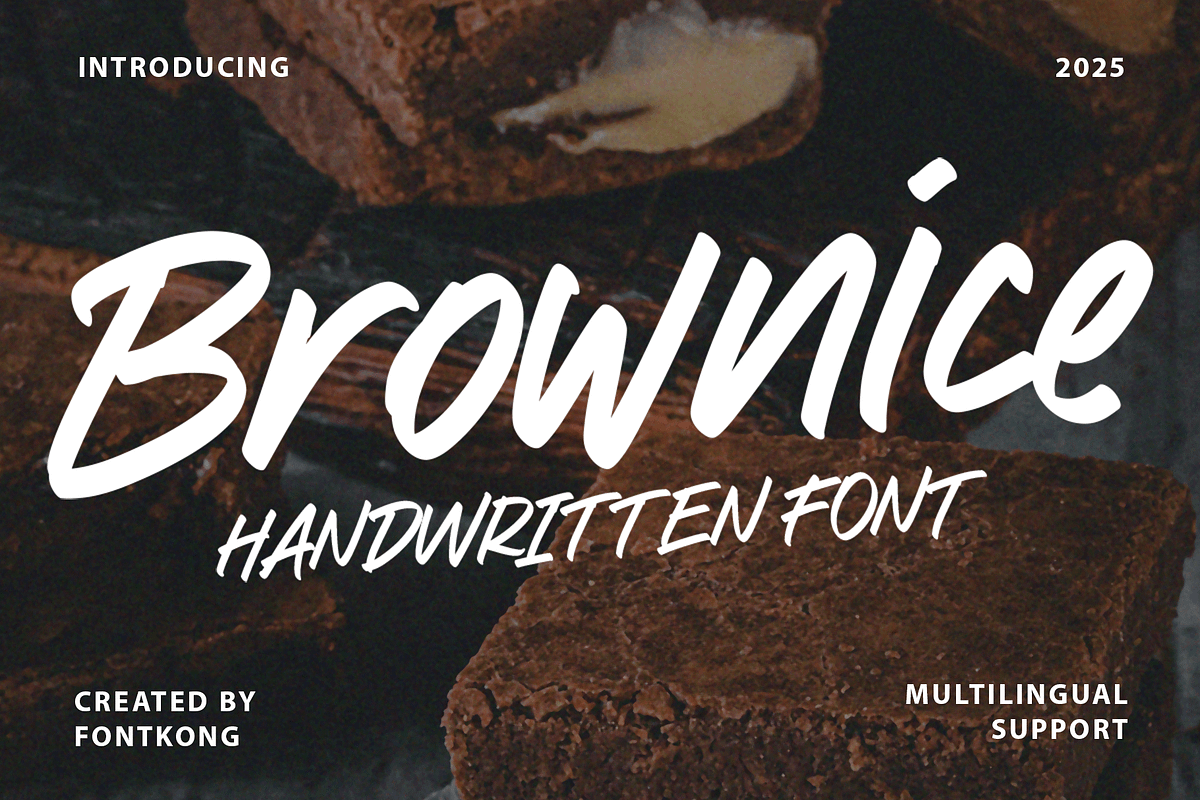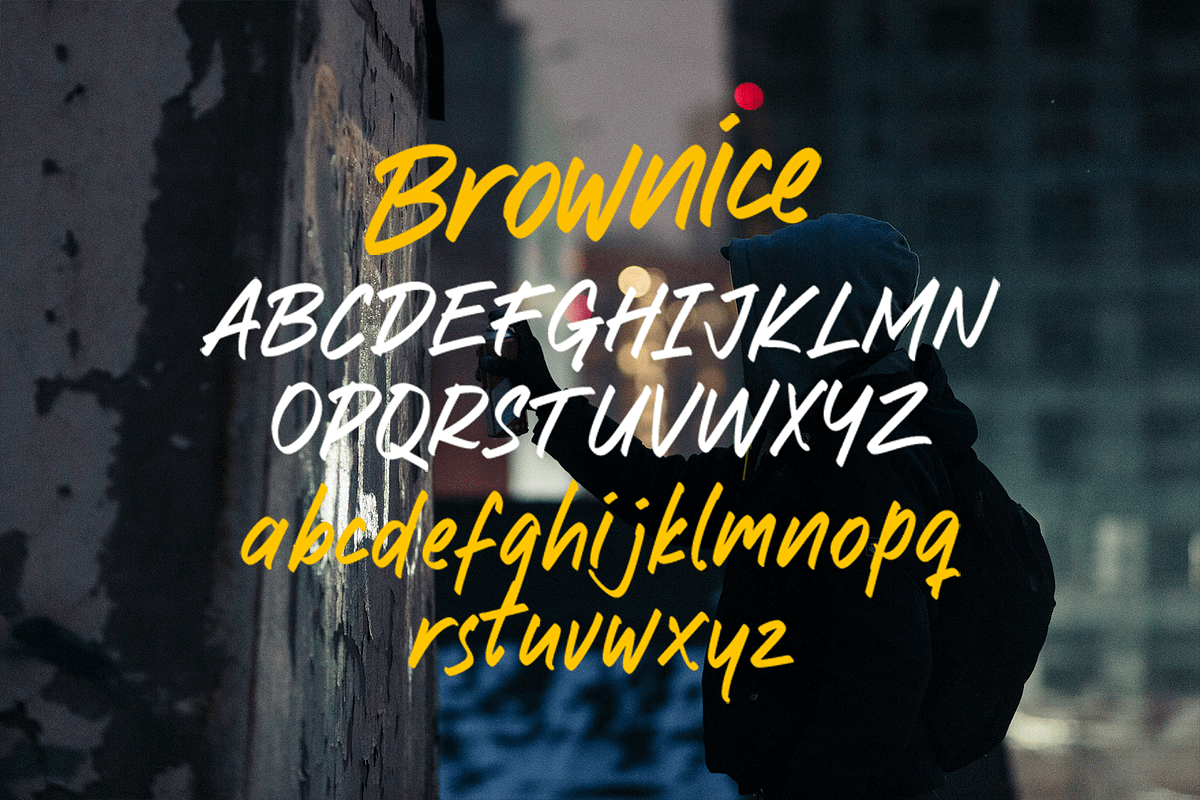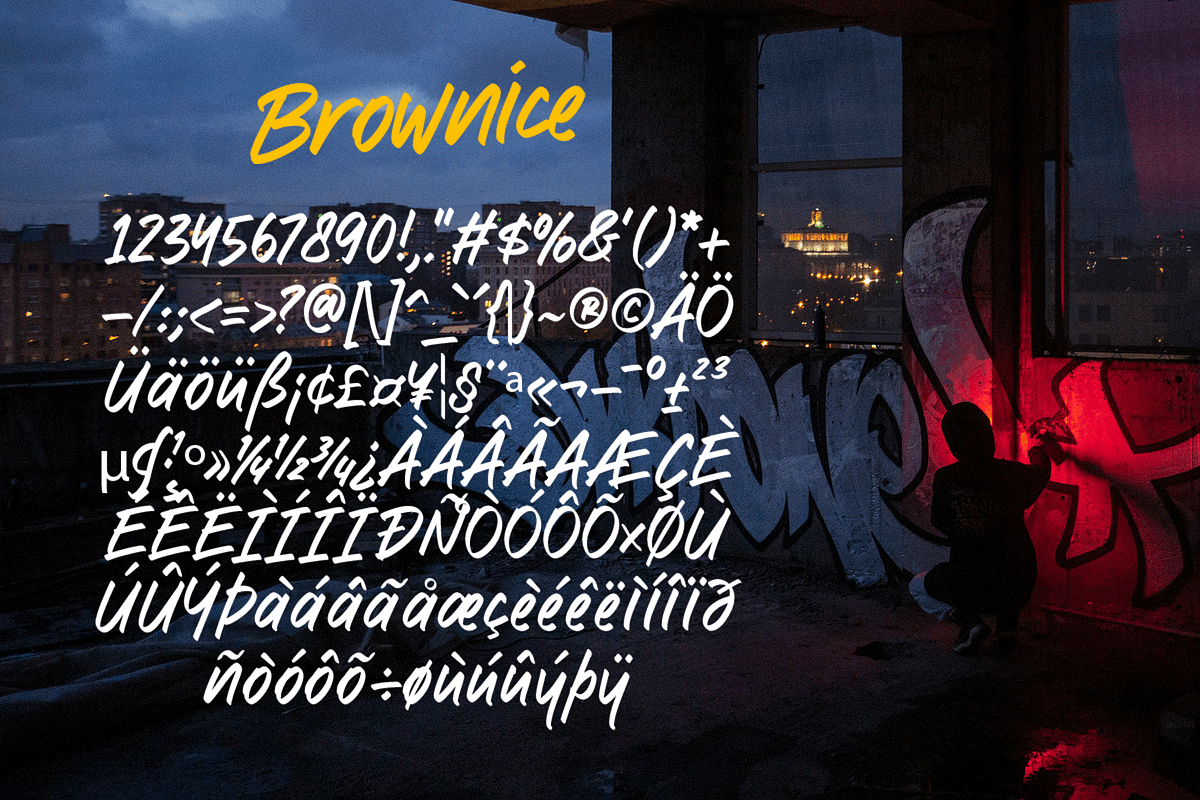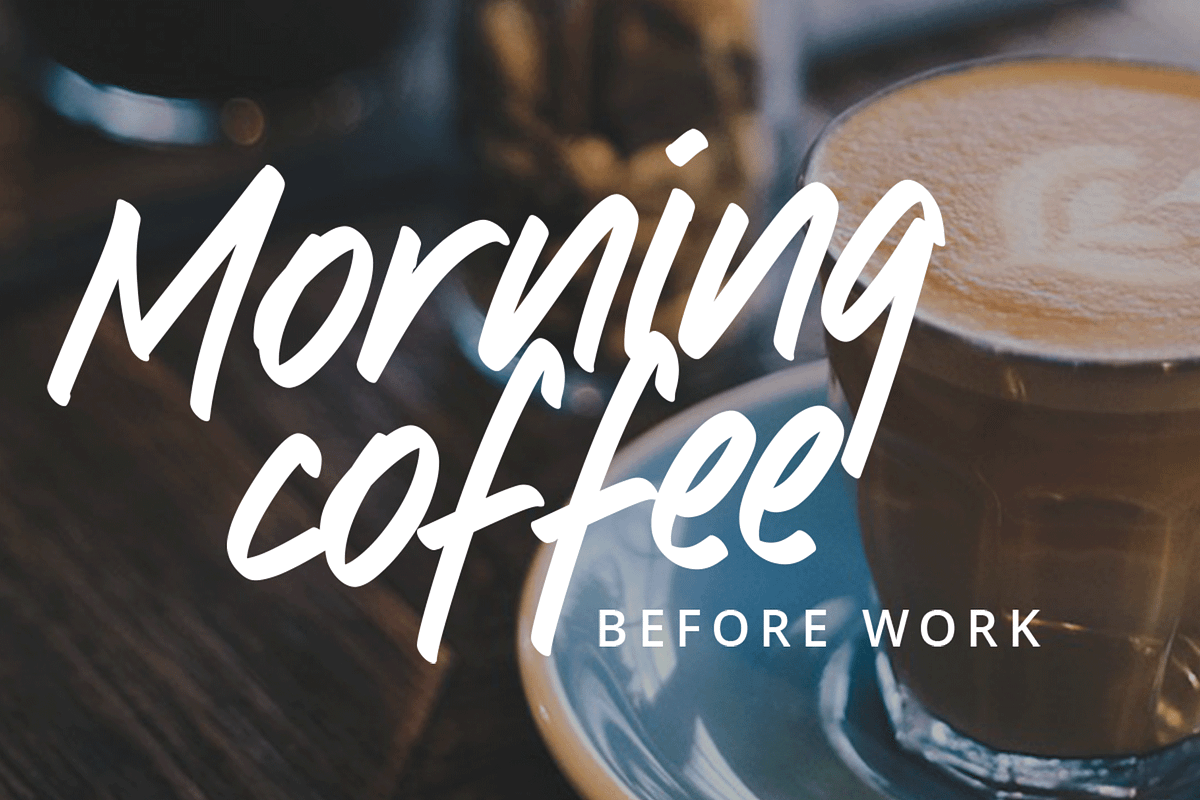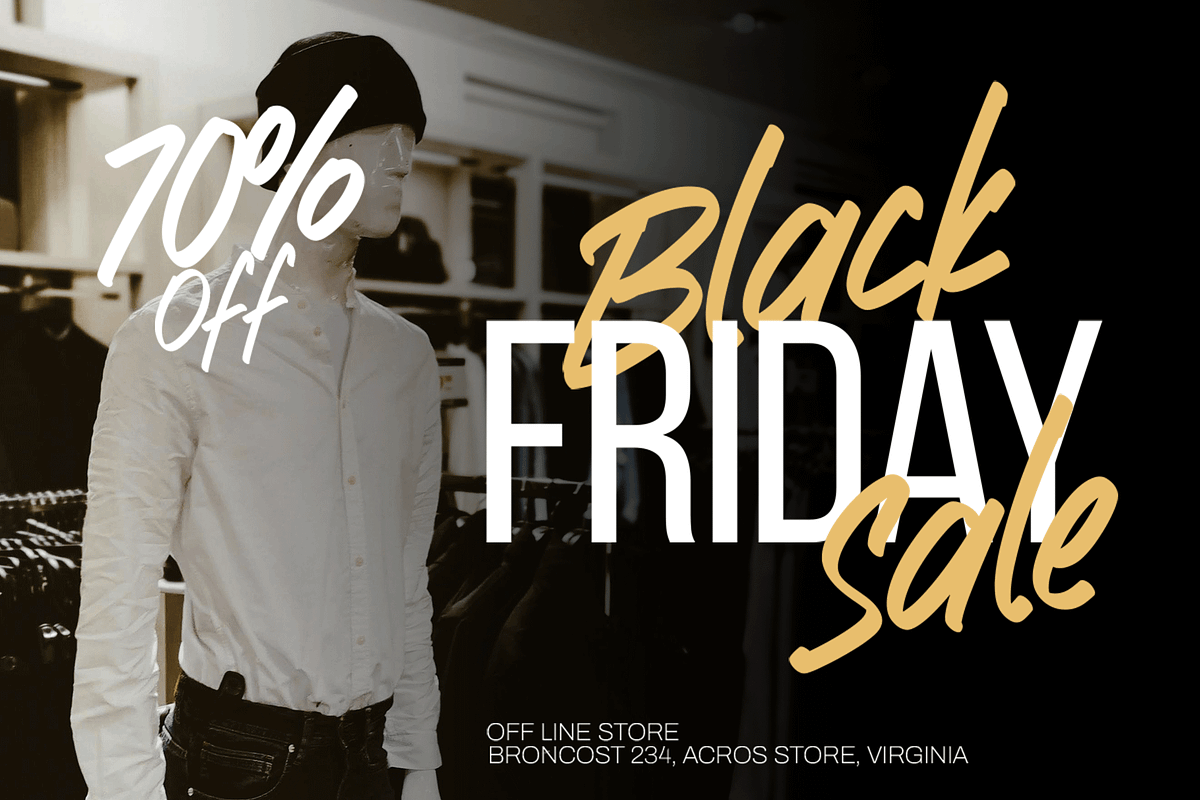
Brownice – Handwritten Font
Say hello to Brownice, a charming handwritten font that brings a personal and heartfelt feel to your creative projects. With its smooth strokes and natural flow, Brownice captures the essence of casual handwriting, making your designs feel friendly, genuine, and inviting.
Perfect for branding, social media graphics, greeting cards, quotes, packaging, and anything that needs a touch of human warmth, Brownice adds an effortlessly stylish flair. Its versatility and readability make it a perfect choice for designers who want to create relatable and memorable visuals.
Let Brownice infuse your projects with authenticity, creativity, and a beautifully handwritten touch.